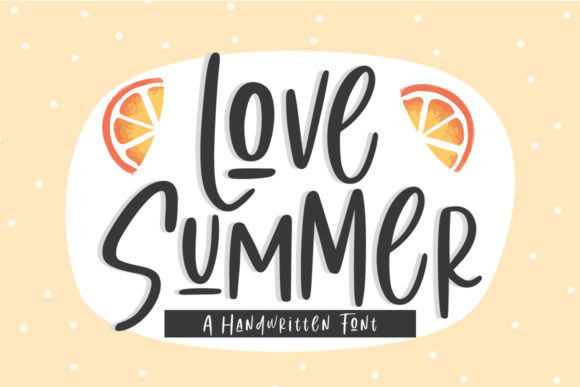
Love Summer: A Handwritten Font for Web Design
As I was putting the final touches on a boutique online store, I stumbled upon Love Summer, a cool, relaxed, and friendly handwritten font. Its authentic look and feel instantly caught my eye, and I knew it could be the perfect addition to create a personal and realistic touch to the site.
First Impressions with Love Summer
I started by testing Love Summer in the hero section of the homepage. The font's playful yet refined style immediately set the right tone for the brand. The handwritten quality added a human touch, making the site feel more approachable and less corporate. This was exactly what the client was looking for—a blend of professionalism and personality.
Visual Characteristics and Personality
Love Summer is a script font that exudes a laid-back, casual vibe. Its smooth, flowing lines and natural imperfections give it a hand-drawn, organic feel. This makes it ideal for brands that want to convey a sense of authenticity and creativity. The font's personality is both inviting and modern, making it a versatile choice for various digital projects.
Using Love Summer in Website Headers and Hero Sections
In the hero section, Love Summer worked beautifully as the main headline. The large, bold letters stood out against a clean, minimalist background, drawing the visitor's attention and setting the mood for the rest of the site. For smaller headers and subheadings, I used a complementary sans serif font to maintain readability and balance.
Readability and Visual Hierarchy
One of the key considerations when using a decorative font like Love Summer is readability. While it shines in large, prominent areas, it can be challenging to read in smaller sizes or long paragraphs. To ensure a good user experience, I reserved Love Summer for hero titles, section headings, and call-to-action areas. For body text and detailed information, I opted for a clean, legible sans serif font.
Enhancing Brand Trust and Consistency
A consistent and well-chosen typeface can significantly impact a brand's trust and professionalism. Love Summer's unique style helped the online store stand out and created a memorable brand identity. By using the font consistently across the site, from the logo to the product descriptions, we maintained a cohesive and polished look.
Love Summer in Different Contexts
- Creative Portfolio: Love Summer adds a personal, artistic touch to a portfolio site, making it feel more like a curated collection of work rather than a generic presentation.
- Boutique Online Store: In an online store, the font can be used for category headers, product titles, and promotional banners, creating a warm and welcoming shopping experience.
- Coaching Website: For a coaching website, Love Summer can be used in the header and taglines to create a friendly and approachable atmosphere, helping to build trust with potential clients.
Mobile and Responsive Design Considerations
When designing for mobile, it's crucial to ensure that the font remains readable and visually appealing. I tested Love Summer on various screen sizes and found that it worked well for larger titles and headings. However, for smaller buttons and text, I used a simpler, more legible font to ensure a seamless user experience.
Font Pairing and Design Assets
To create a balanced and professional design, I paired Love Summer with a simple sans serif font for body copy. This combination provided a nice contrast and made the content easy to read. For a more editorial and sophisticated look, I also experimented with pairing Love Summer with a classic serif font, which added a touch of elegance to the overall design.
Checking Included Styles and Webfont Availability
Before using Love Summer on the live site, I checked the included styles, webfont availability, and file formats. The font came with multiple weights and alternates, allowing for greater flexibility in design. Additionally, I verified that the font supported multilingual characters, which was essential for the international audience of the online store.
Final Thoughts on Love Summer
Love Summer is a fantastic choice for adding a personal and creative touch to any digital project. Its handwritten, relaxed style makes it perfect for a wide range of applications, from website headers to branded graphics. By carefully considering its use and pairing it with complementary fonts, you can create a visually appealing and engaging online experience.